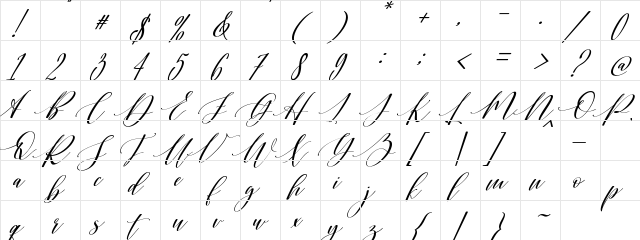
Shington Regular
| Foundry | Solidtype |
| Designer | Solidtype |
Design Context for Shington Typeface
Shington is a composed and adaptable typeface that performs quietly and consistently across a wide range of design contexts.